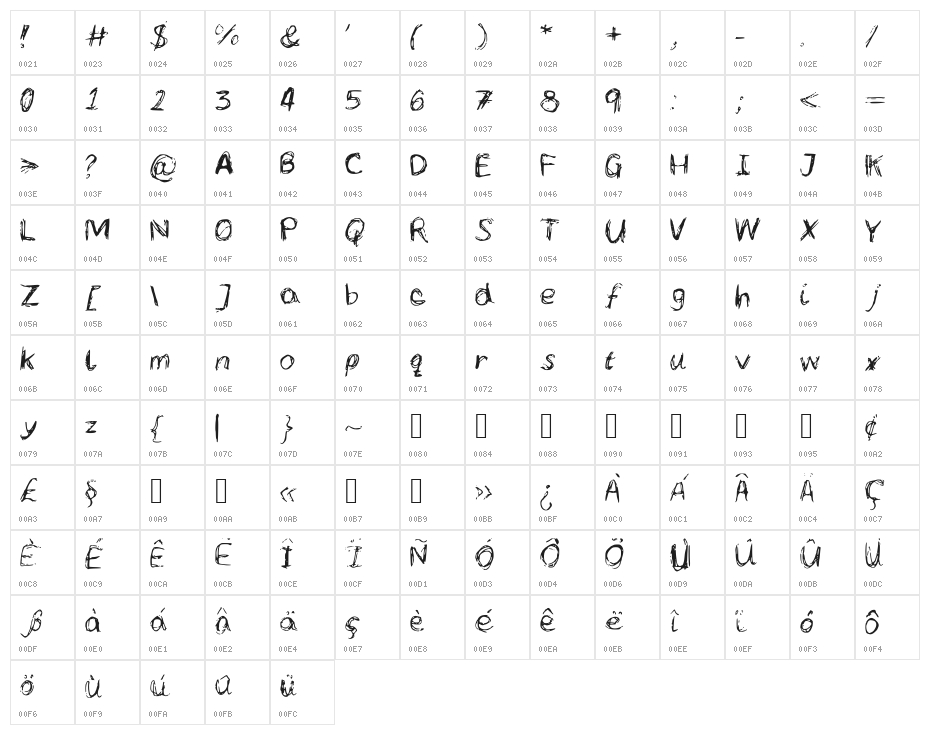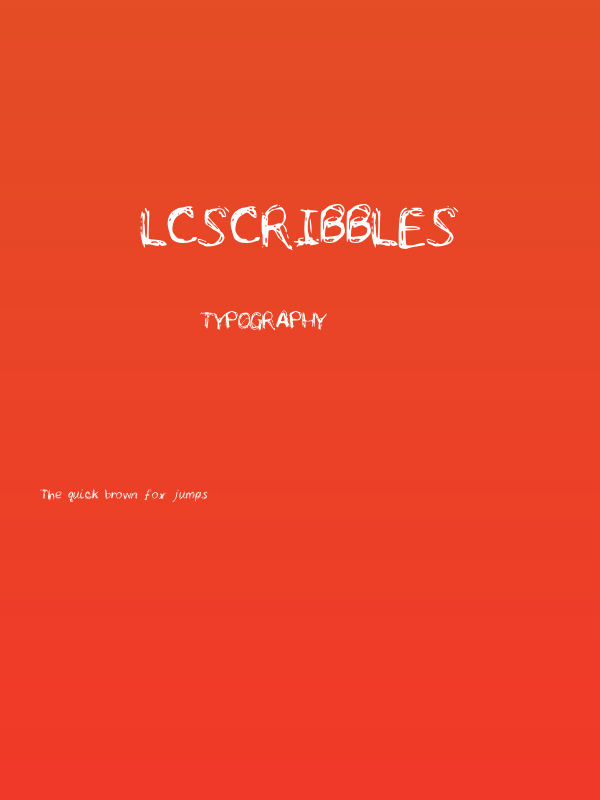
LCScribbles Font
LCScribbles Description
This font exudes a chaotic and energetic vibe, characterized by its bold, irregular strokes and rough, hand-drawn appearance. The letters are highly stylized, with jagged edges and a sense of movement that suggests a scribbled or graffiti-like quality. The uppercase and lowercase letters maintain a consistent style, with exaggerated curves and angles that create a dynamic and visually striking effect. Numbers and special characters follow the same design principles, adding to the font's cohesive yet wild aesthetic. This font is ideal for projects that require a bold statement or an edgy, artistic touch.
Proposed ProjectsPerfect for album covers, street art-inspired designs, edgy posters, and creative branding projects.